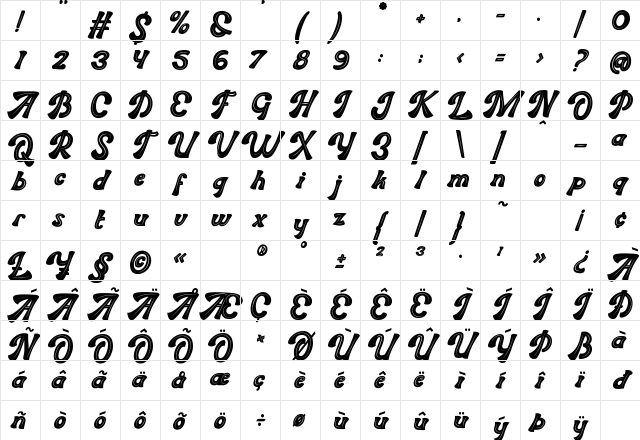
Sweet Joys Inline Regular
Foundry: Putracetol Studio, Karanganyar.
Designer: Putra Novembria Candra Kusuma
Design Context for Sweet Joys Inline
Sweet Joys Inline is built around its visual character rather than neutral utility - its distinctive forms are designed to make an impression at display sizes.
Font Pairing: Pair with a clean neutral sans-serif for body copy to let Sweet Joys Inline's character lead without overwhelming the composition.
Pro Tip: Use Sweet Joys Inline exclusively at display sizes - it was designed to be seen, not read at length. Let a neutral companion handle body copy.